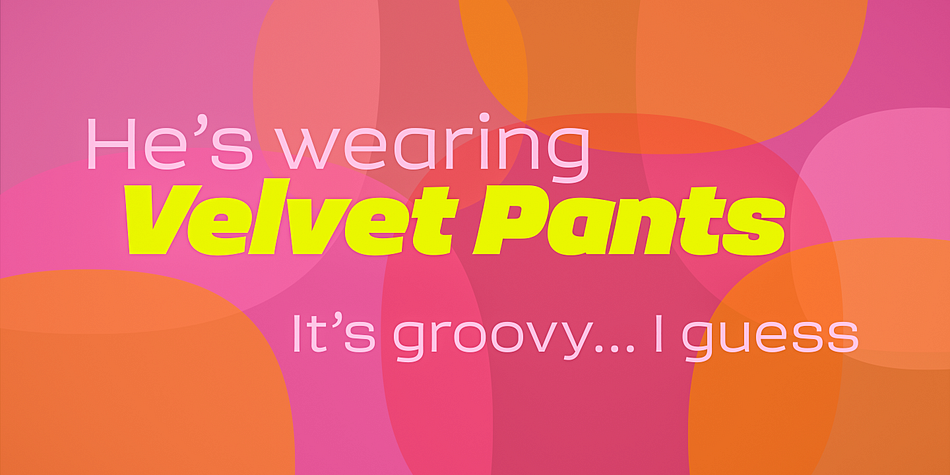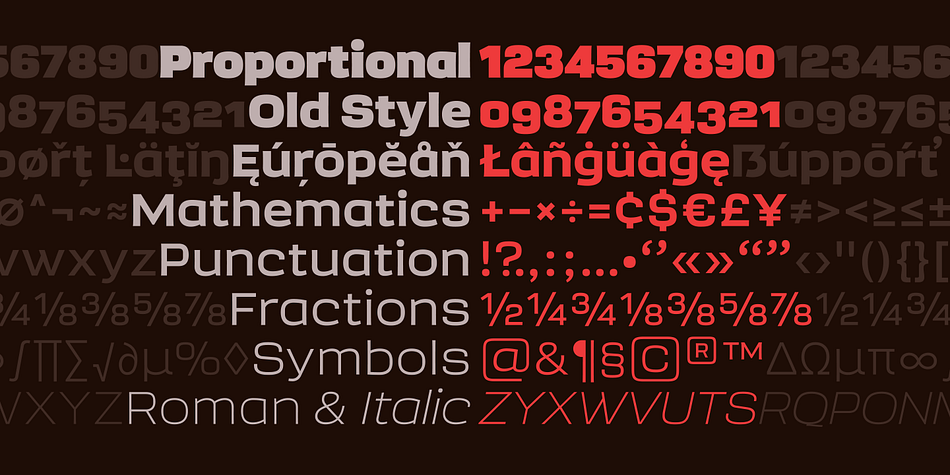
Sqwared
Designed by Paulo Goode, Sqwared is a sans serif font family. This typeface has eighteen styles and was published by Paulo Goode.
Sqwared is a square sans serif type family… with flares! This typeface has a retro, hand-painted quality – the slight flaring of its verticals evoke the steady brush of a signwriter. Sqwared benefits from large, open counters and a generous x-height that aids clarity and legibility, while a wide footprint gives these fonts a degree of stature and an air of confidence. Each character was drawn while immersed in a late sixties/early seventies vibe, but there’s no reason why Sqwared can’t be used for your contemporary designs.
There are 16 fonts altogether, ranging from Thin to Ultra weights in both roman and italic. It has a Latin character set that covers all Latin European languages.
Sqwared will dazzle in headlines, add flair and distinction to your logo designs, bring flamboyance to your branding material, and your body text will most definitely be unique!
Variable fonts are included in this family, so you can tune the weight of each font to your exact preference.
Key features:
• 8 weights in Roman and Italic
• Full European character set (Latin only)
• 440 glyphs per font.